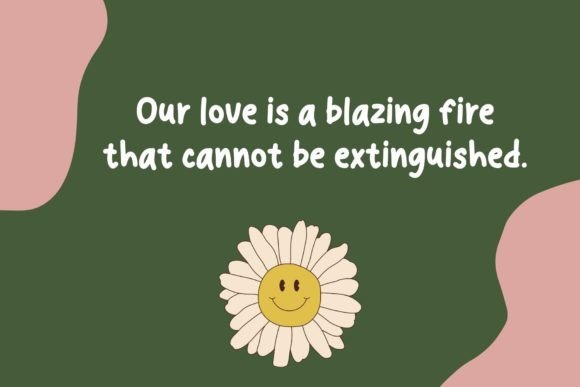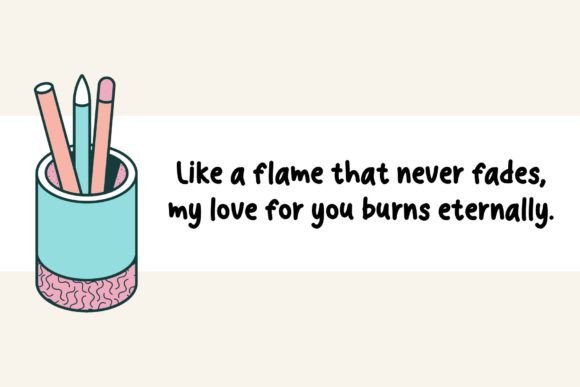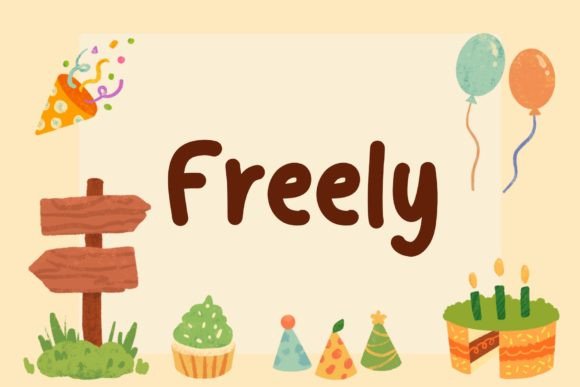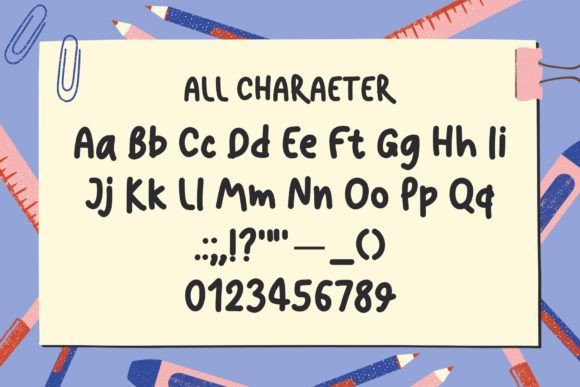
Unlock Your Creativity with the Freely Font
There’s nothing quite like the rush of creative inspiration – the moment when ideas start flowing and your imagination runs wild. It’s a feeling that can strike at any time, whether you’re brainstorming a new project or staring blankly at a blank page. For designers, this moment is especially precious, as it can lead to breakthroughs and game-changing ideas.
That’s where the Freely Font comes in – a versatile and stylish font that’s designed to help you make a lasting impression. Whether you’re crafting logos, branding materials, or invitations, this font is the perfect companion for your creative endeavors. With its effortless style and adaptability, the Freely Font is a valuable tool for any designer looking to elevate their work.
Freely Font Key Features
- Character Set: The font includes a comprehensive set of characters, including Latin, Cyrillic, and Greek alphabets, as well as punctuation marks and symbols.
- Unique Characteristics: Freely Font features a unique blend of modern and vintage elements, with clean lines, geometric shapes, and subtle texture, making it perfect for creative and design-focused projects.
- Font Styles: The font includes multiple font styles, including Regular, Bold, Italic, and Bold Italic, allowing for flexibility and versatility in typography.
Freely Font Review
I recently had the chance to work with the Freely Font, and I must say it’s an interesting choice. Here are my thoughts.
- The Freely Font has a unique and playful feel to it, perfect for projects that need a bit of whimsy.
- The font is highly customizable, allowing designers to adjust the spacing, line height, and even add custom ligatures.
- The font family includes a wide range of weights and styles, making it easy to find the perfect fit for your project.
- The Freely Font can feel a bit over-ornate for some projects, which may make it difficult to read in certain contexts.
- The font’s bold weights can sometimes feel too heavy, overpowering the surrounding text.
- The font’s default spacing can be a bit tight, which may lead to issues with text flow.
The Freely Font is a solid choice for projects that require a bit of personality and flair. While it may have some limitations, it’s a versatile font that can be tailored to fit a wide range of design styles. Just be sure to use it thoughtfully and consider the context in which it will be displayed.
Tips for Getting the Most Out of Freely Font
Experiment with different font styles and sizes to achieve unique visual effects.
Combine Freely Font with other design elements, such as graphics and images, to create engaging content.
Use Freely Font in conjunction with other design tools, such as shapes and icons, to enhance your designs.
Headlines and titles in marketing materials and presentations.
Body text in reports, documents, and websites.
Custom typography in branding and identity design.
Alternatives to Freely Font for Designers
Montserrat is a popular sans-serif font that is perfect for modern designs. It’s clean and minimalist, making it ideal for digital products, apps, and websites. Montserrat is more geometric than Freely Font, which gives it a more contemporary look.
Inter is a versatile sans-serif font that is designed for digital use. It’s highly legible and works well for body text, titles, and headlines. Inter is more neutral and less ornate than Freely Font, making it a great choice for designs that require a clean and simple look.